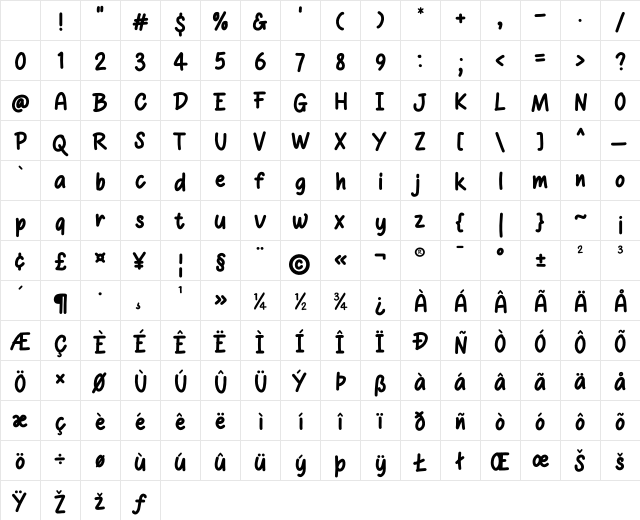
Boldiaer is a composed and adaptable typeface that performs quietly and consistently across a wide range of design contexts. Its bold stroke weight gives it real presence on the page.